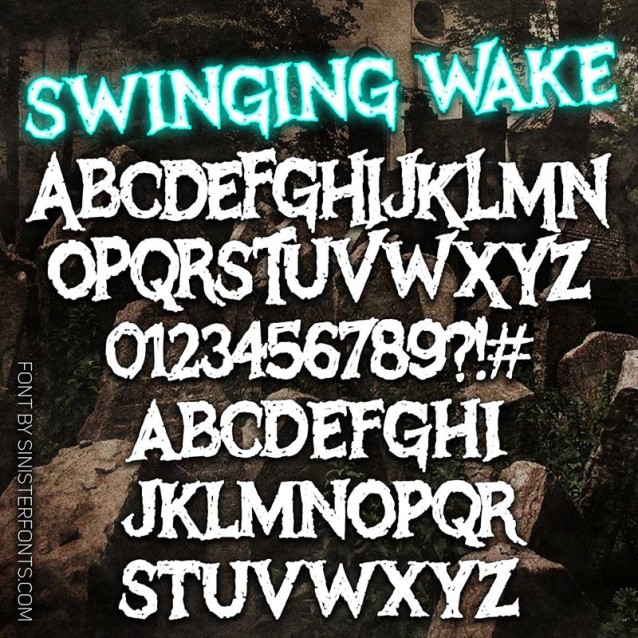
Swinging Wake Font
Swinging Wake Font is a handcrafted horror font inspired by the lettering on classic sci-fi and horror movie posters. This font is perfect for Halloween party invitations, posters, packaging design, and any project where you want to create a “vintage creepy” feel.
Created 2024, hand-lettered.
This font is intended for specialty and graphic uses. It will look just awful if used in a paragraph format.